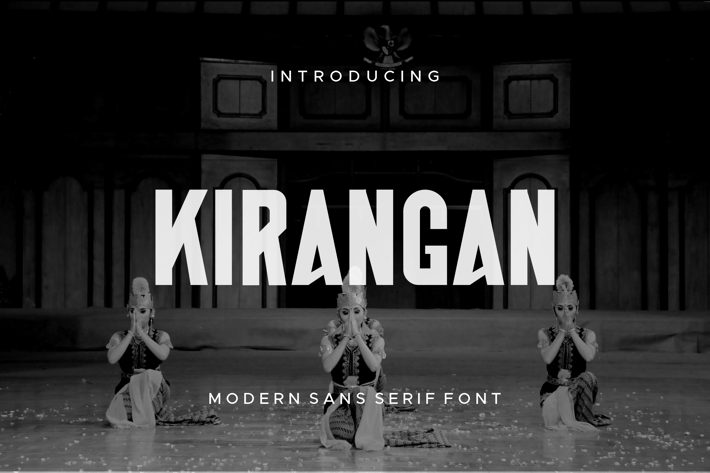
Kirangan - Modern Sans Serif Font
Introducing our new product - Kirangan Modern sans serif Font
Kirangan is a modern sans serif font, modern display font with playful flair, ideal for attention-grabbing headlines, logos, and diverse design projects. Versatile and readable in both digital and print, Kirangan adds a dynamic touch to your message.